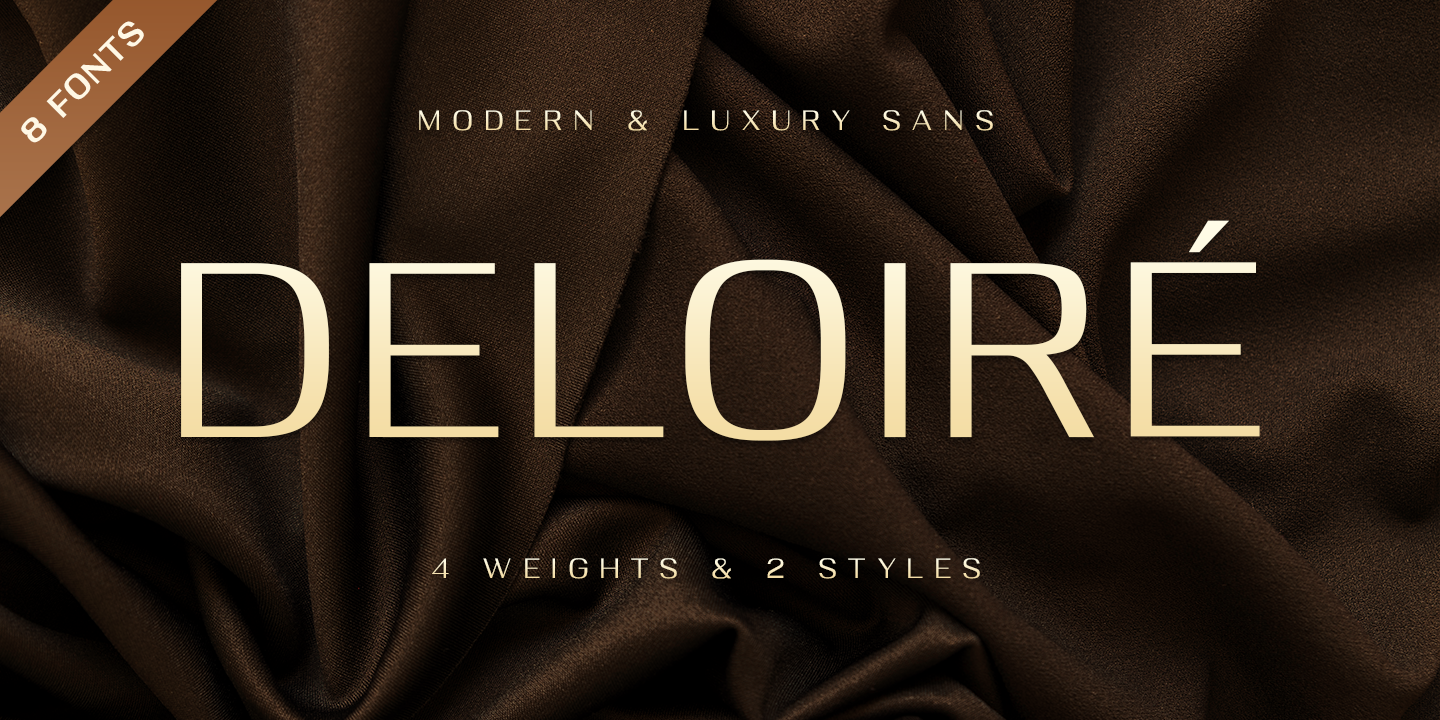
Deloire Font is perfect for French wine estate branding, Loire Valley tourism campaigns, elegant vineyard signage, sophisticated restaurant menus, artisan cheese packaging, French countryside marketing, boutique hotel communications, gourmet food labeling, romantic château invitations, and refined culinary presentations. Its French character makes it ideal for projects requiring Gallic sophistication and authentic Loire Valley charm that celebrates French heritage.
What makes Deloire Font exciting is its exquisite capture of French elegance and Loire Valley sophistication through letterforms that embody the refined beauty and cultural richness of historic French regions. The font features graceful curves with aristocratic proportions that evoke the timeless charm of French châteaux while maintaining excellent readability for luxury communications. Its French character transforms ordinary text into expressions of continental refinement that celebrate the art of living well.
The Deloire Font family includes Regular, Bold, Light, Elegant, Château, Vintage, and French variations. Each style preserves the font's Loire essence while offering different levels of French sophistication and regional weight for creating authentic continental graphics. The comprehensive character set includes French symbols, Loire ornaments, château decorations, and Gallic glyphs essential for genuine French and European typography projects.
French businesses and European brands consistently choose Deloire Font Free Download for projects demanding authentic Loire typography solutions. The font's French character instantly establishes continental credibility while ensuring elegant communication across European marketing channels. Its versatility spans from subtle French touches to bold statements that celebrate the rich cultural heritage and sophisticated lifestyle traditions of the Loire Valley region.
Whether you're developing French brand identities, creating Loire Valley marketing materials, or designing continental communications, Deloire Font provides the perfect combination of French authenticity and contemporary functionality. The font's elegantly crafted letterforms ensure genuine Loire character while maintaining excellent performance across various European applications and sophisticated business communications.
The continental heritage of Deloire Font makes it exceptional for creating refined connections with audiences who appreciate French culture and Loire Valley sophistication. Its French precision and elegant appeal work seamlessly across traditional European materials and modern digital continental platforms. The font performs beautifully in both large-scale château displays and intimate French communications.
Embrace French sophistication with Deloire Font and discover how authentic Loire typography can enhance your continental projects with genuine French appeal and refined elegance. This remarkable typeface combines Loire Valley tradition with contemporary functionality, making it indispensable for brands celebrating the timeless sophistication and cultural richness of French heritage and continental European lifestyle.